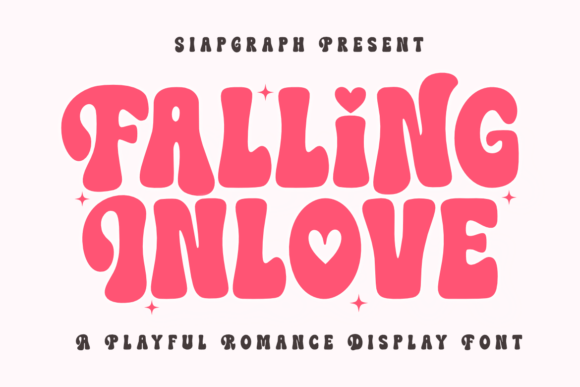
Falling Inlove: A Playful Typeface for Romantic & Nostalgic Designs
The Falling Inlove font brings a burst of charm and retro joy to any design project. With its smooth curves, bouncy baseline, and unmistakably warm personality, this display font channels the carefree spirit of the 70s and 80s. Whether you're crafting a wedding invitation, designing a t-shirt, or creating a social media post for Valentine's Day, Falling Inlove instantly adds a touch of whimsy and romance.
Unlike many modern fonts that lean minimal or utilitarian, Falling Inlove stands out with its expressive, hand-crafted feel. The rounded edges and slight bounce in its baseline give it a sense of movement and lightheartedness. It's not just a font—it's a mood. The style feels familiar yet fresh, nostalgic yet contemporary, making it a versatile choice across a wide range of creative applications.
Where Falling Inlove Shines Best
This font excels in projects that celebrate love, joy, and connection. Designers working on wedding invitations, engagement party decor, or personalized anniversary gifts will find it especially useful. Its playful tone also makes it a hit for bachelorette party designs, children's apparel, and cute stickers that need a dash of personality.
Because of its strong visual character, Falling Inlove works best as a display font rather than for long-form body copy. Think headlines, titles, logos, and short bursts of text where you want to grab attention and evoke emotion.
How Falling Inlove Enhances Your Design Projects
Typography plays a crucial role in shaping how your audience perceives your brand or message. Fonts like Falling Inlove don't just communicate words—they communicate feeling. Using this font can influence how your audience interprets your project's tone, whether it's sweet, nostalgic, romantic, or fun.
From a design perspective, Falling Inlove helps establish a clear visual hierarchy when used alongside more neutral fonts. Its playful nature can make other elements feel more grounded by contrast. When applied consistently across print and digital assets, it contributes to brand recognition and audience engagement.
For small business owners and entrepreneurs in the craft, print-on-demand, and DIGITAL design spaces, using a cohesive typeface like Falling Inlove across product packaging, social media posts, and promotional materials adds a layer of professionalism that customers notice—even if they don't realize it.
Choosing and Using Falling Inlove Effectively
When selecting a font like Falling Inlove for your project, it's important to consider both its visual appeal and its practical functionality. Here are a few tips to help you make the most of this charming typeface:
1. Test it in context: Try it in your actual design layout—whether it's a t-shirt mockup, a wedding invitation, or a web banner. See how it reads at different sizes and against different backgrounds.
2. Pair it wisely: Falling Inlove pairs well with clean sans-serif fonts like Montserrat or Lato for contrast. Avoid pairing it with too many other decorative fonts, as it can quickly become overwhelming.
5. Use for short text: Due to its stylized nature, Falling Inlove is best used for headlines, logos, and short phrases rather than body text where readability is key.
Real-World Design Examples and Recommendations
Designers have successfully used Falling Inlove in a variety of creative contexts. For example, a boutique wedding planner might use it for invitation suites and seating charts, while a POD seller could feature it on romantic quote mugs or Valentine’s Day t-shirts.
For digital creators, Falling Inlove can be a powerful asset in social media graphics and Instagram story templates where visual appeal and emotional resonance are key. Bloggers and content creators in the lifestyle or romance niches might use it sparingly in featured images or quote cards to add a personal, hand-crafted touch.
If you're working on packaging design for a new line of love-themed candles or bath products, Falling Inlove can help your brand stand out on shelves or online marketplaces. Just remember to pair it with a legible secondary font to maintain balance and readability.
Final Thoughts on Falling Inlove
Falling Inlove is more than just a font—it's a design tool that evokes emotion, tells a story, and connects with audiences on a personal level. Whether you're a designer, marketer, or small business owner, incorporating this playful, romantic typeface into your projects can elevate your work and make it feel more intentional and memorable.